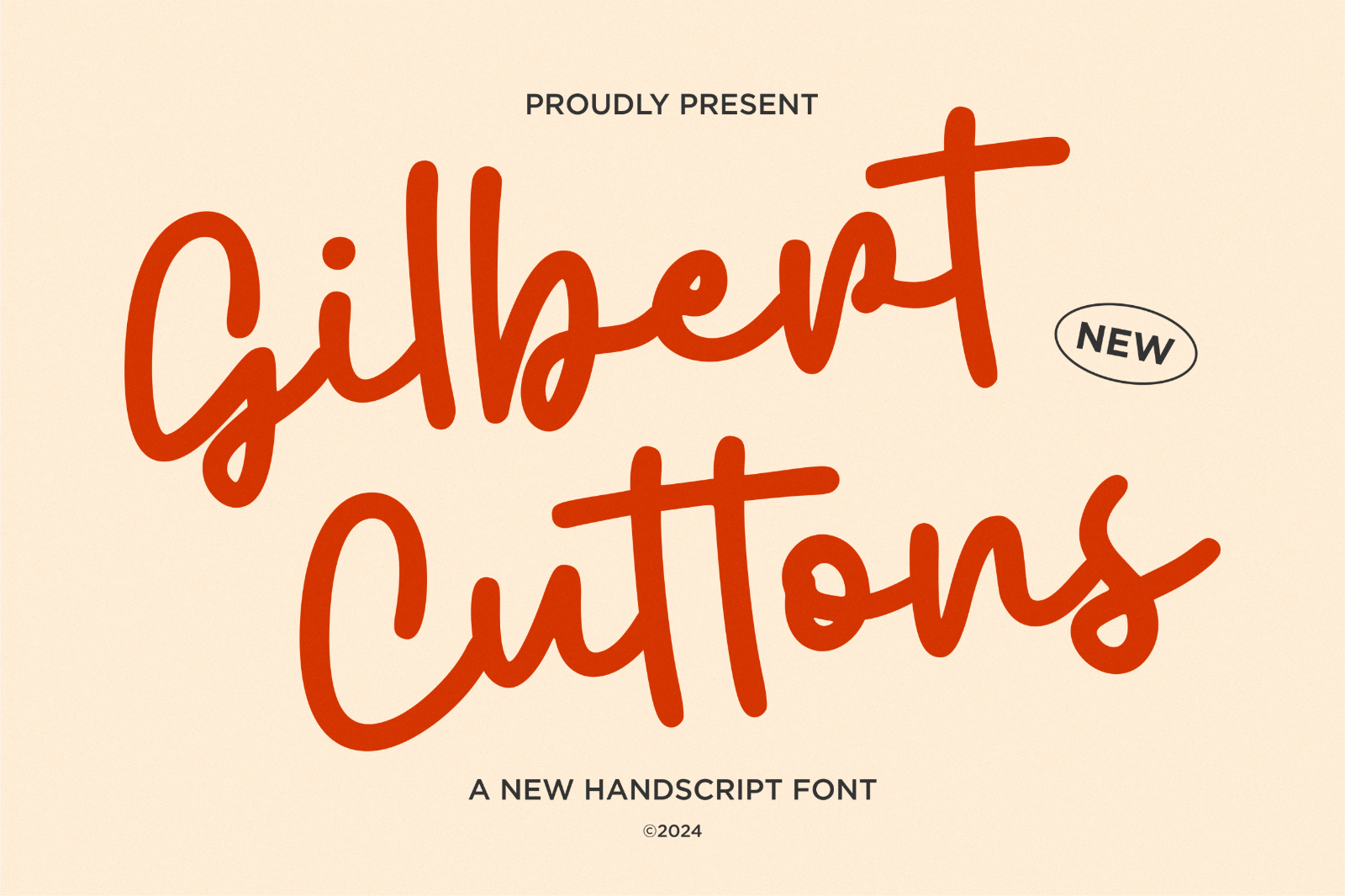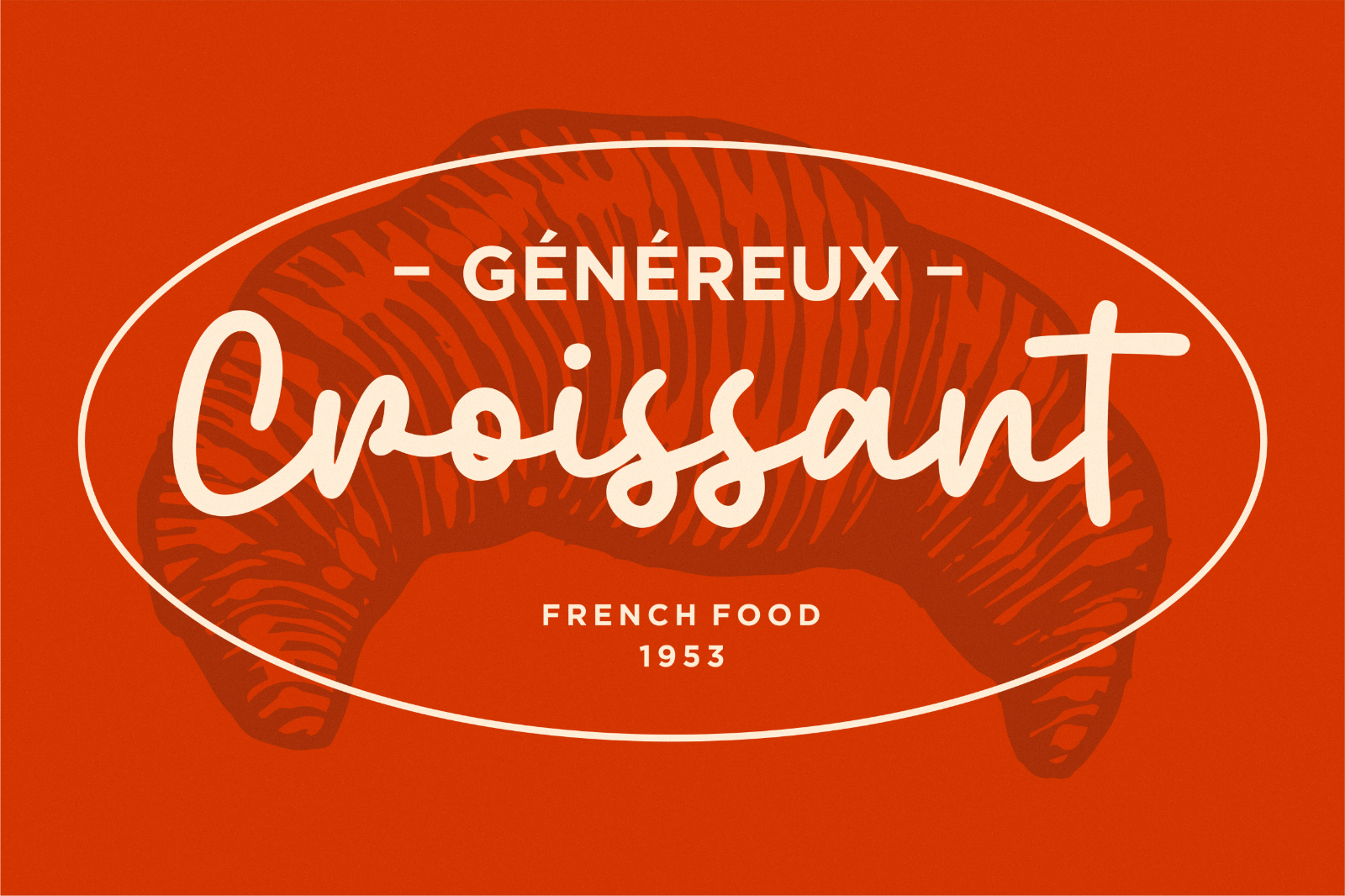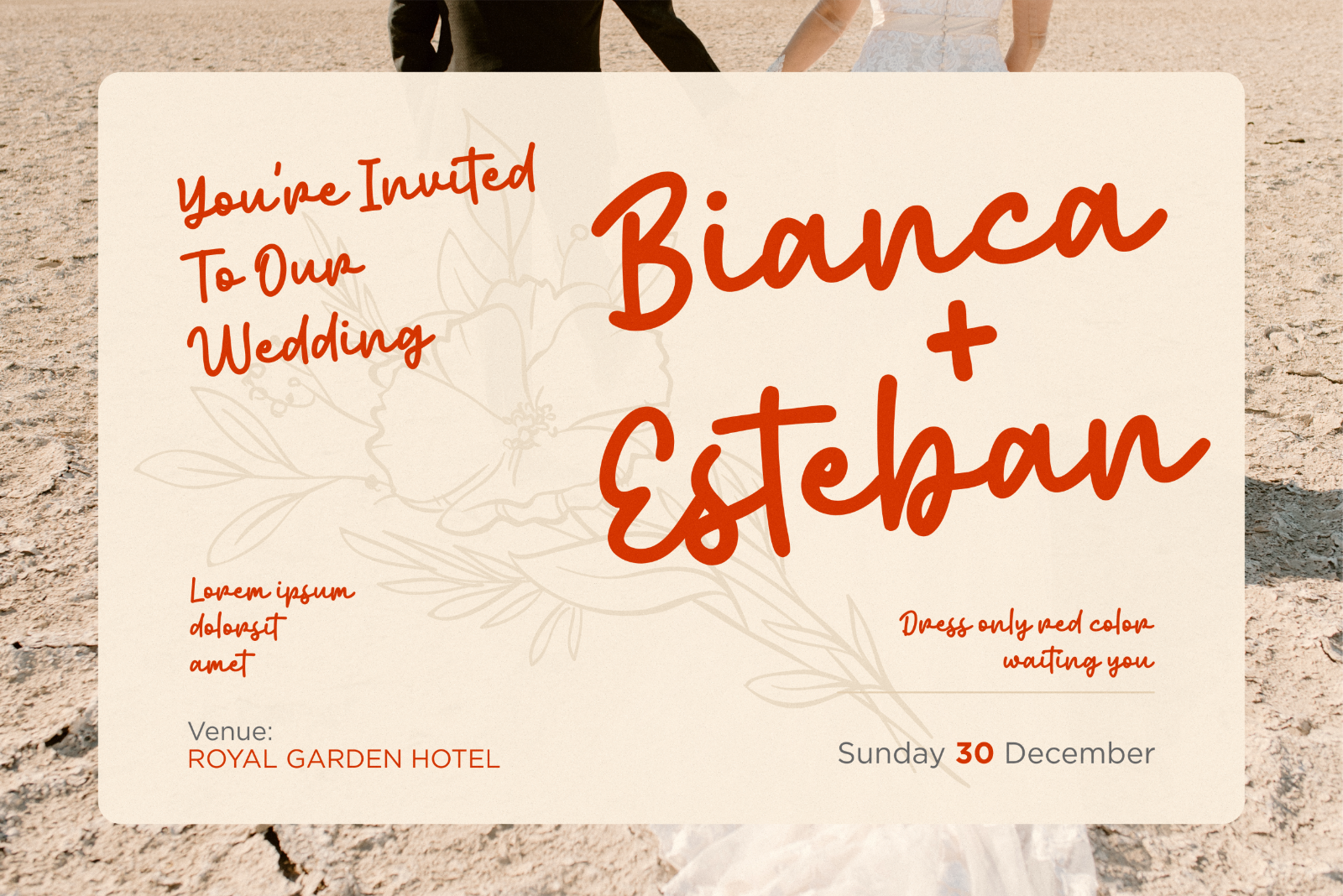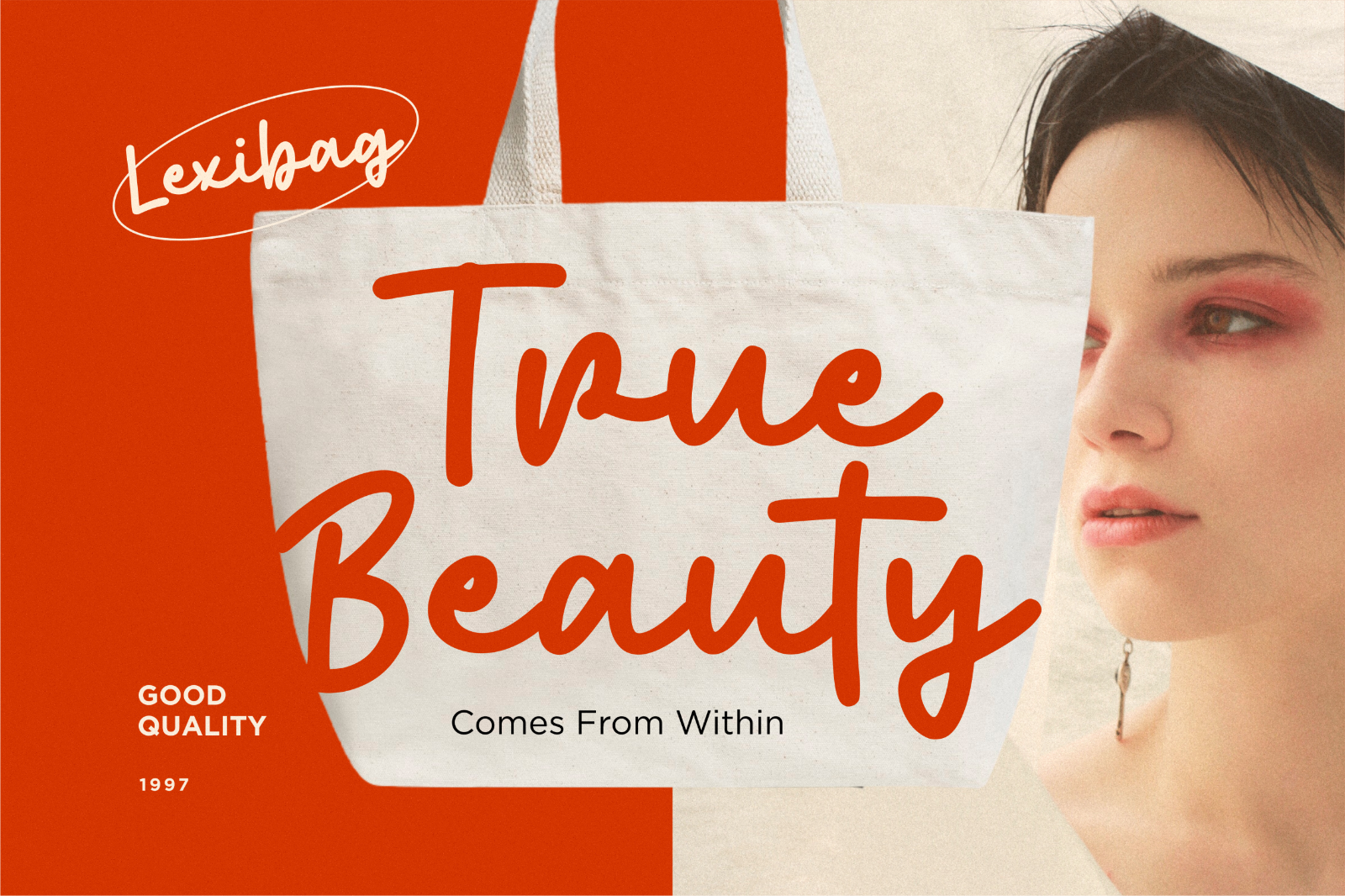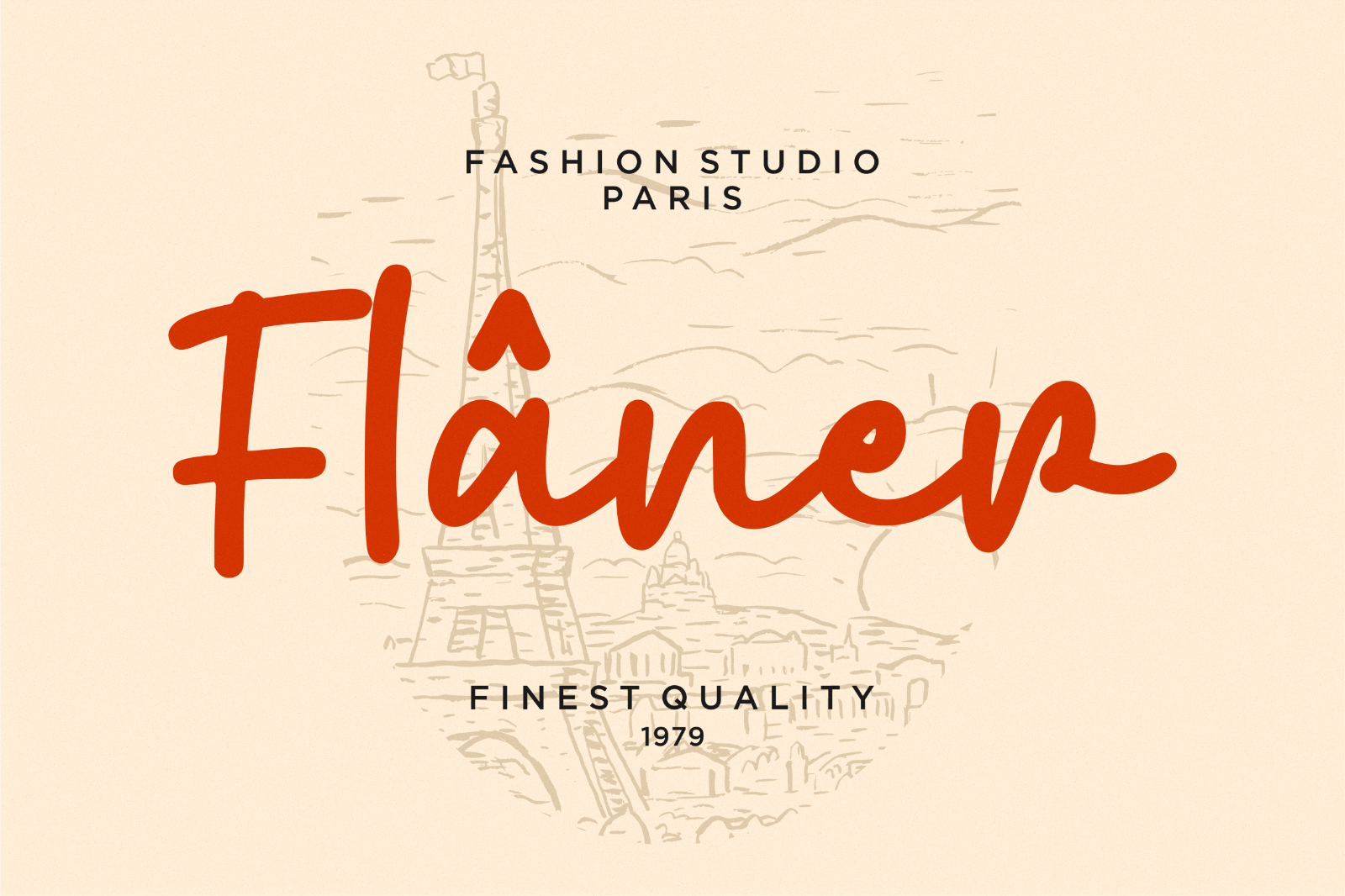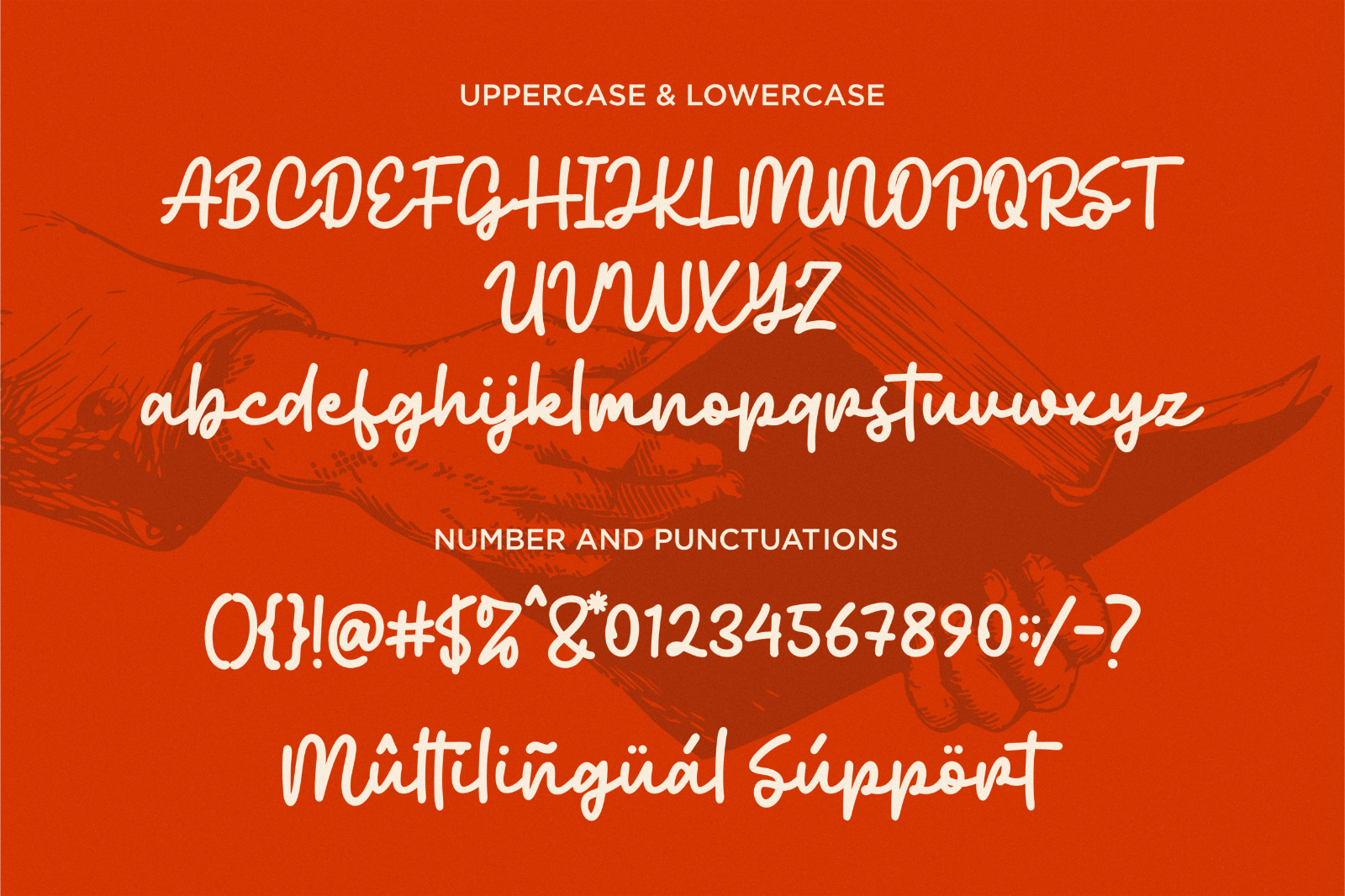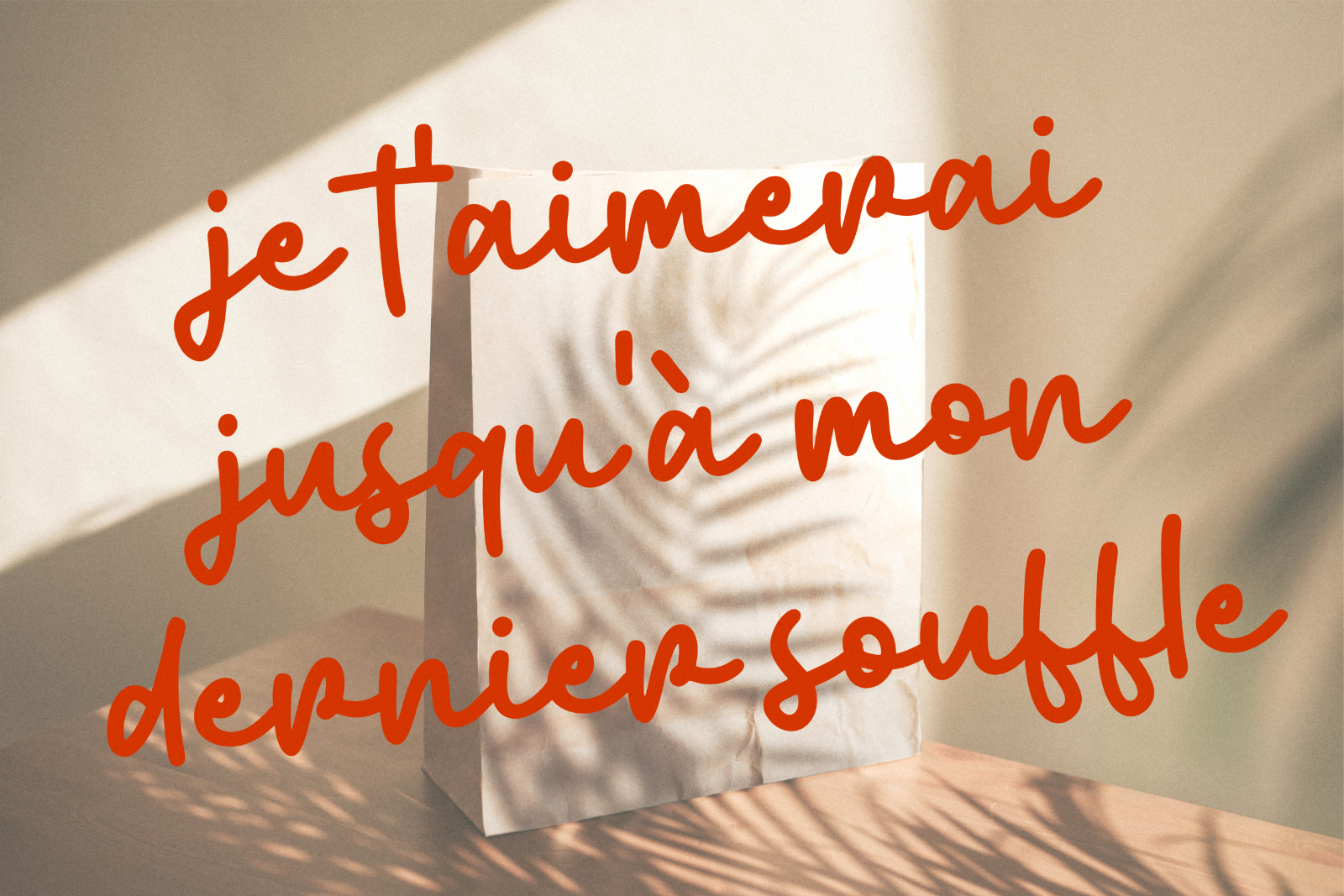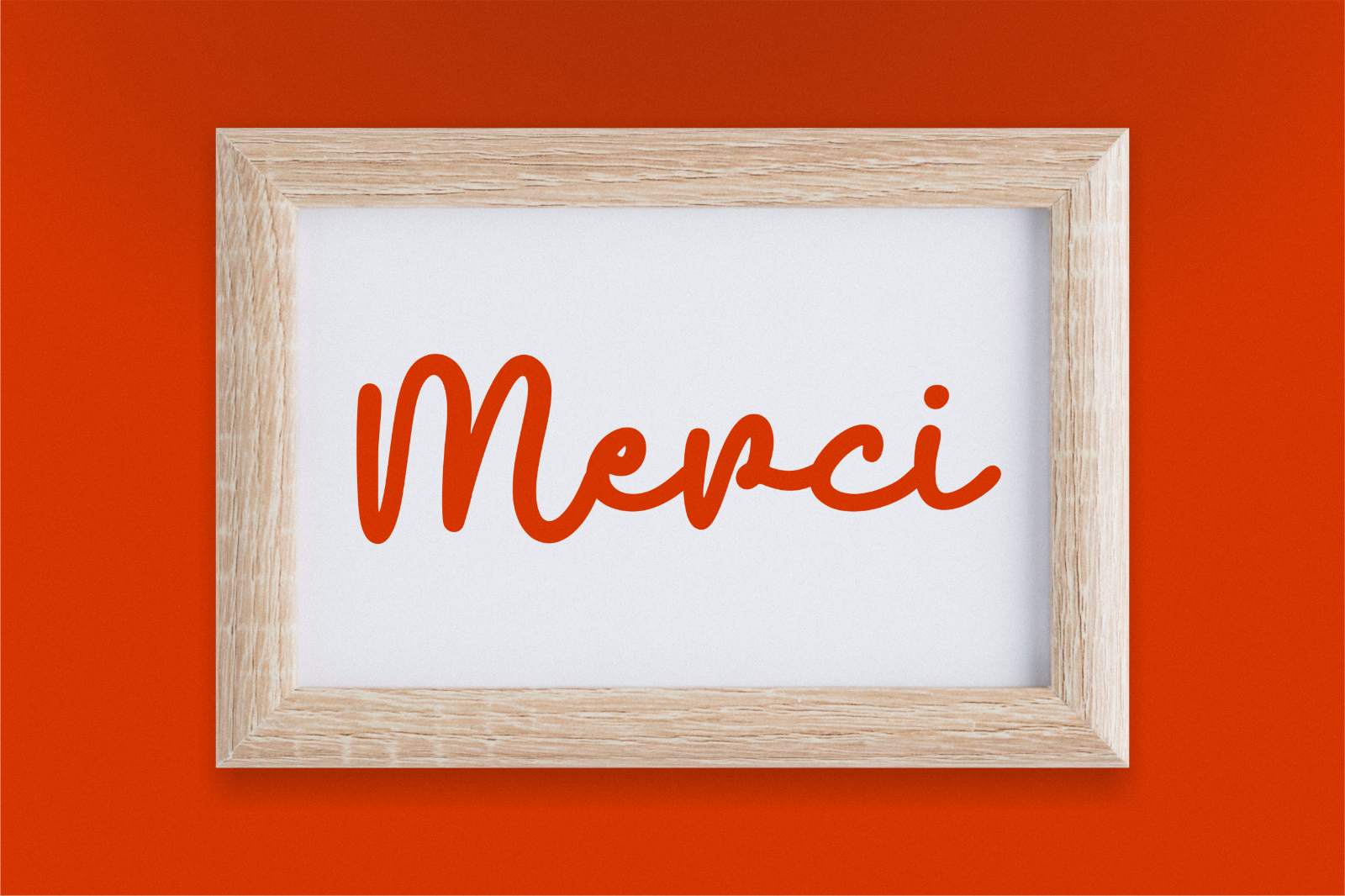
Unveiling Gilbert Cuttons, the monoline handscript font, expertly curated by Anxietype Foundry. Whether it's enriching your product packaging, lending an edge to your branding projects, or adding a dash of elegance to your magazine or social media profiles, Gilbert Cuttons never disappoints. Not just that, it makes an excellent choice for wedding details or powerfully expressing words against a background. Indulge in the unique charm of Gilbert Cuttons and let your designs narrate a story.